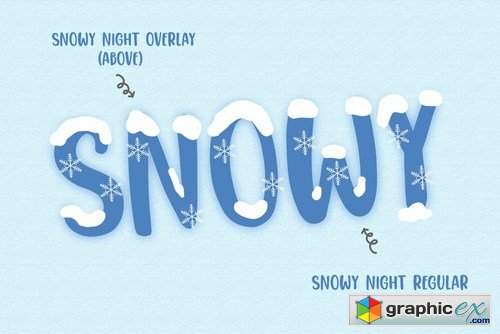
Snowy Night
Get this Snowy Night Font for your snowy season! It's a friendly handwritten sans, comes in all caps and snow overlay. Fun for your winter designs or even for any designs!